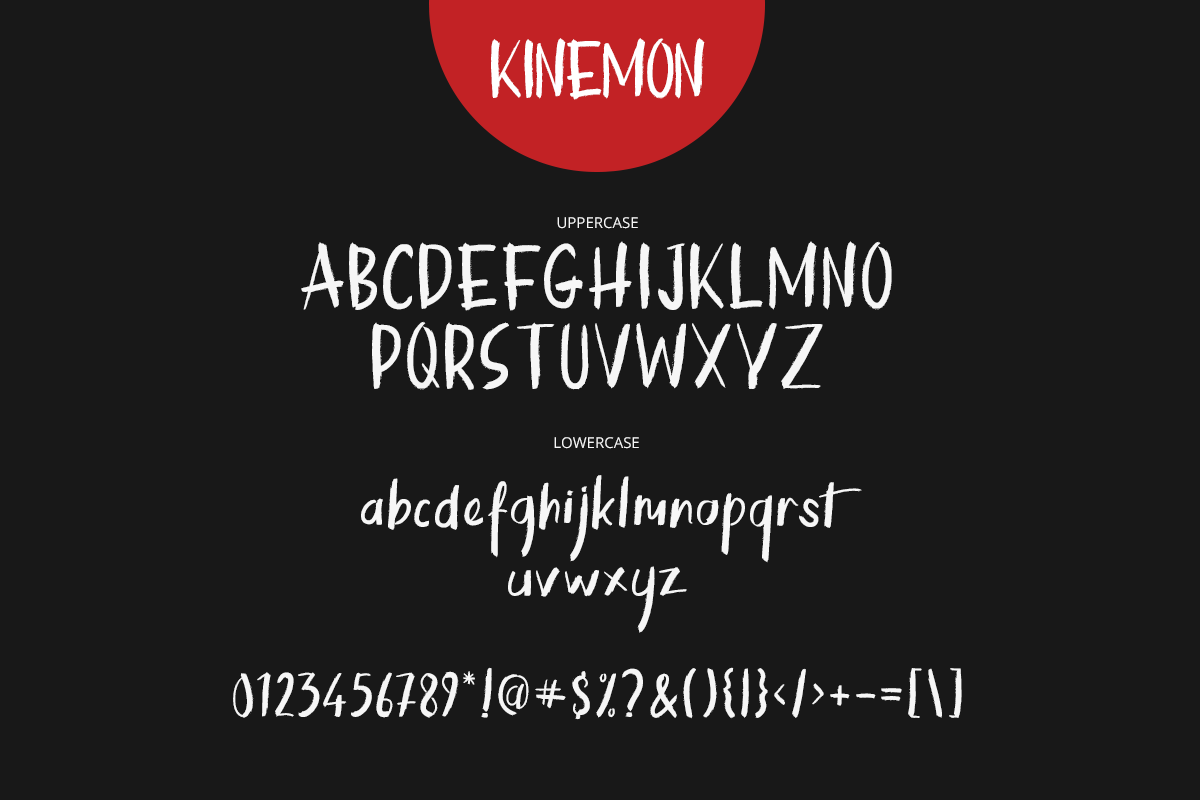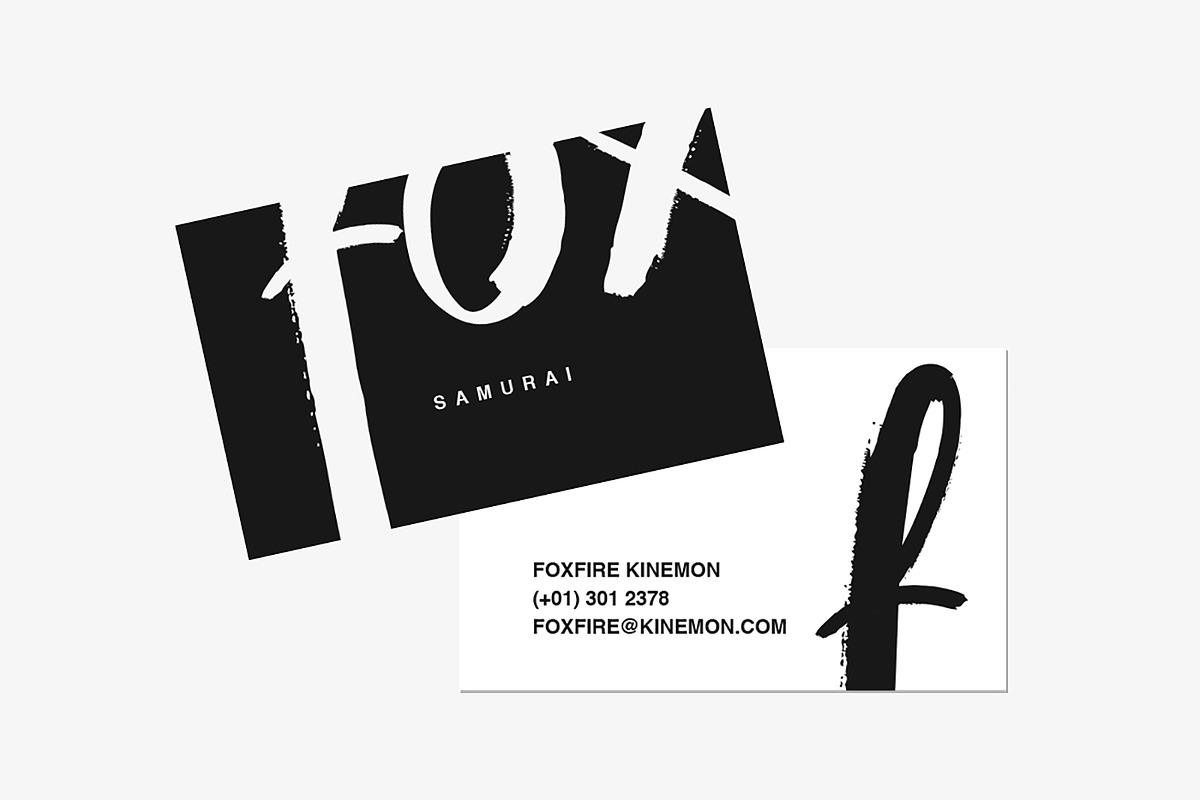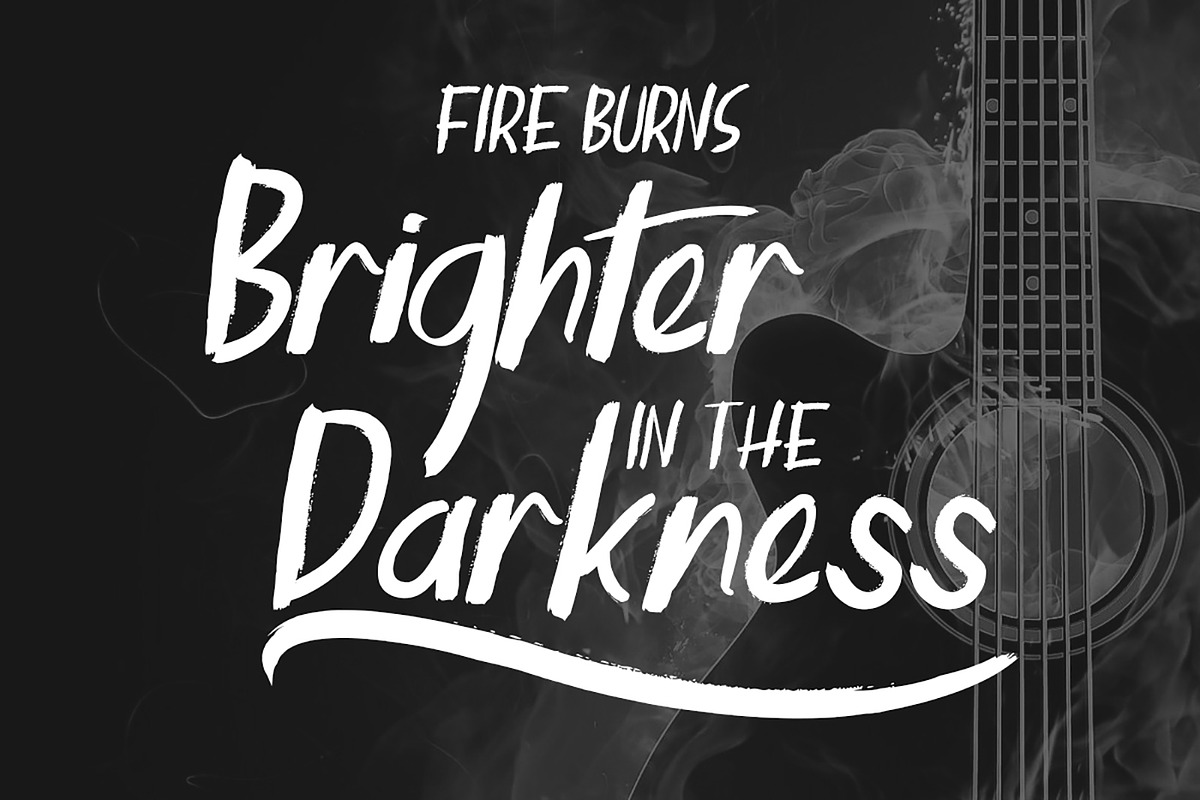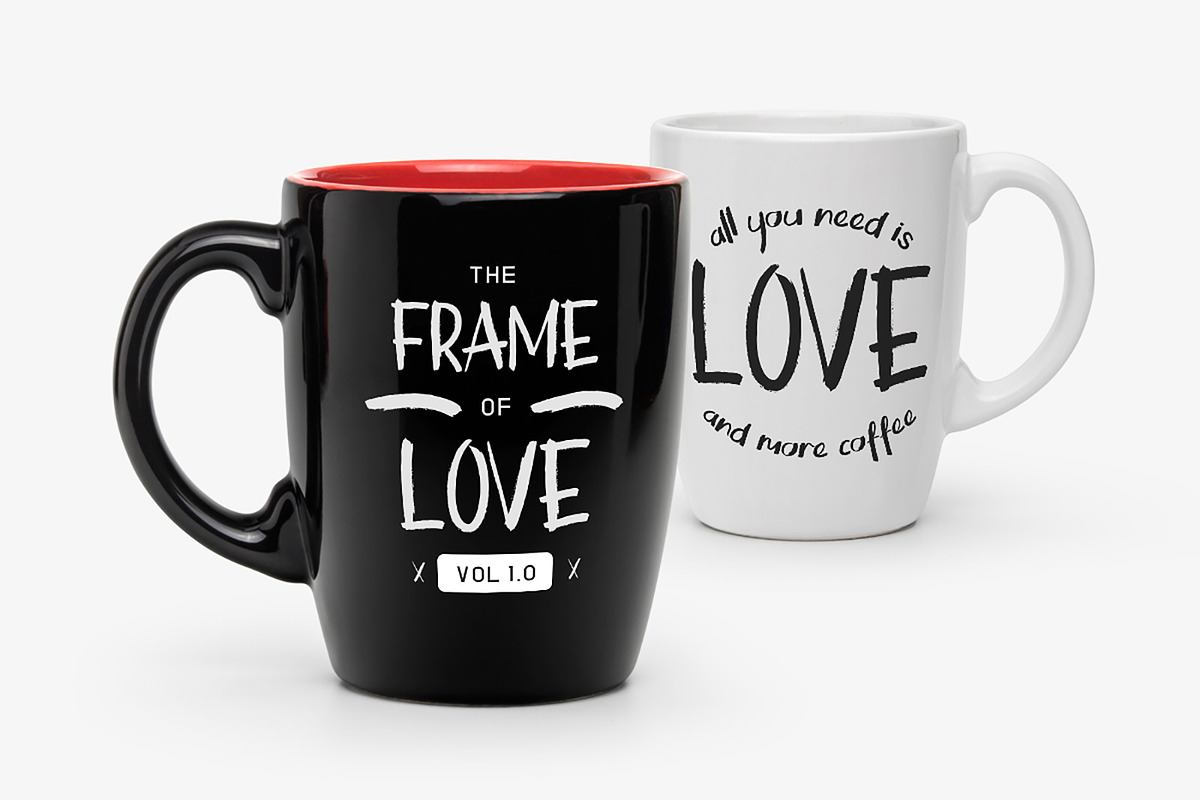
Sale 40% OFF - Kinemon Font Trio by Factory738 Studio is a font selected for branding, posters, packaging, typography.
- Introducing Kinemon - a new beautiful handcrafted brush font & swash as a bonus with a nice calligraphy-style, comes with upper and lowercas
- Kinemon One
- Kinemon Swashes One
- Kinemon Swashes Two
- Kinemon Three
- Kinemon Two
Sale 40% OFF - Kinemon Font Trio by Factory738 Studio fits naturally into Branding, posters, packaging, typography.